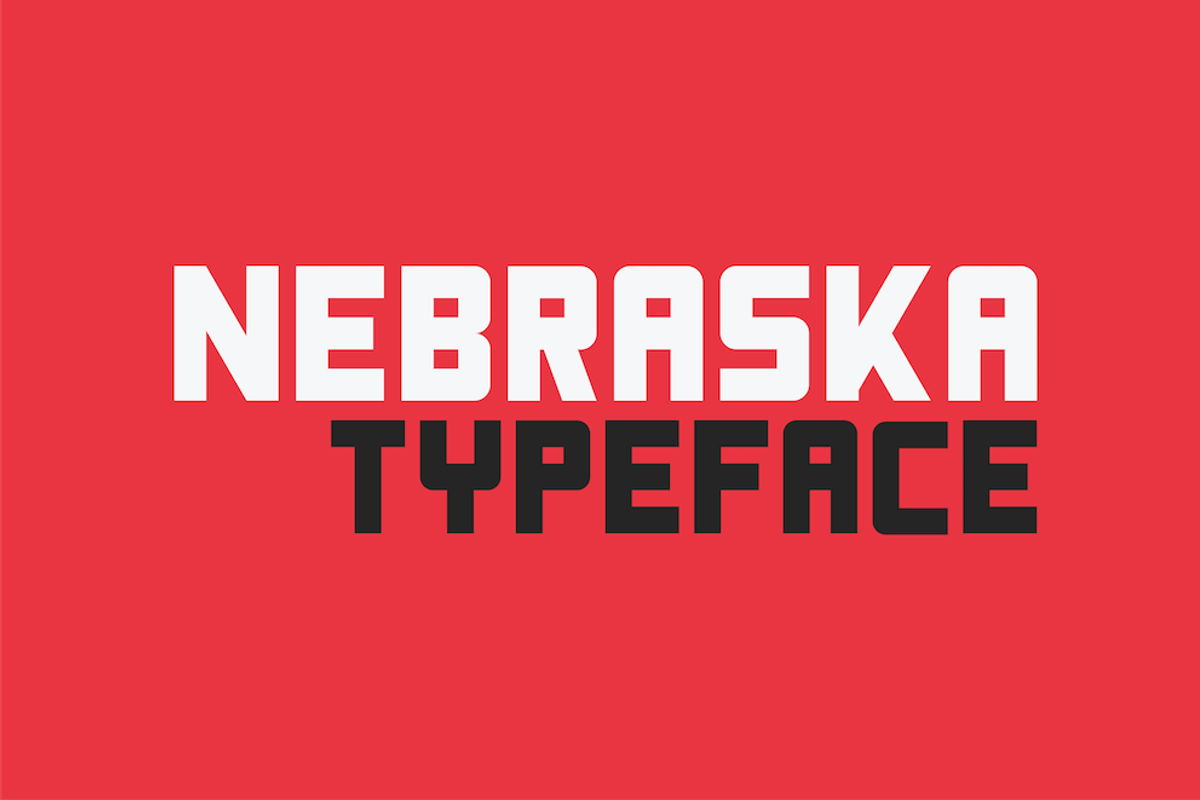
NEBRASKA Typeface Free Download is a strong and versatile font inspired by classic Americana and rustic charm. Please note: you must purchase this font for commercial use, but you can test it through a free download. With bold letterforms, vintage character, and a touch of Western grit, NEBRASKA is ideal for logos, outdoor branding, signage, apparel, and editorial layouts that need an authentic, grounded look.
This typeface brings together heritage style and modern usability—perfect for projects that want to feel both timeless and confident. Whether you're crafting a farm-to-table brand, a country music poster, or a heritage-inspired label, NEBRASKA Typeface Free Download delivers bold impact with clean readability. Compatible with Adobe Illustrator, Photoshop, and Canva, it’s easy to use across all your design platforms. Download it today for personal use and bring the heartland feel of NEBRASKA into your next creative project.